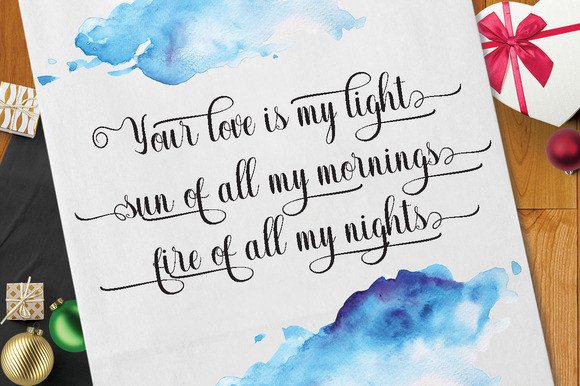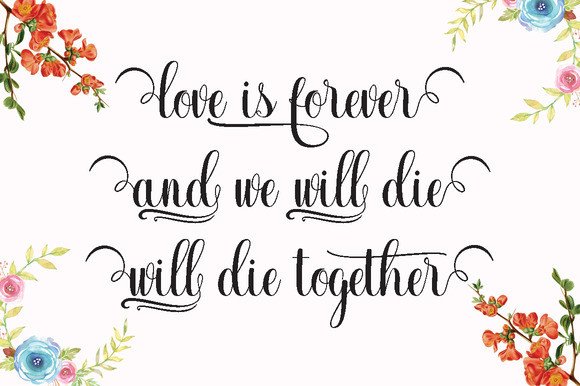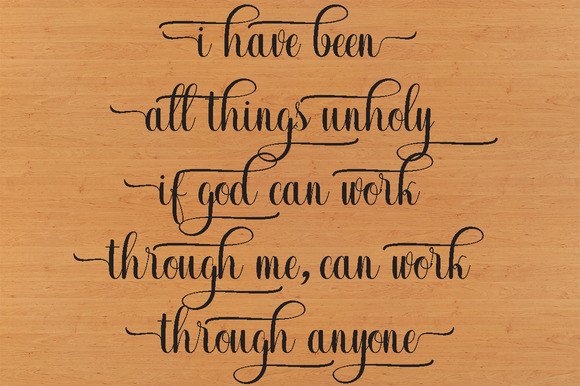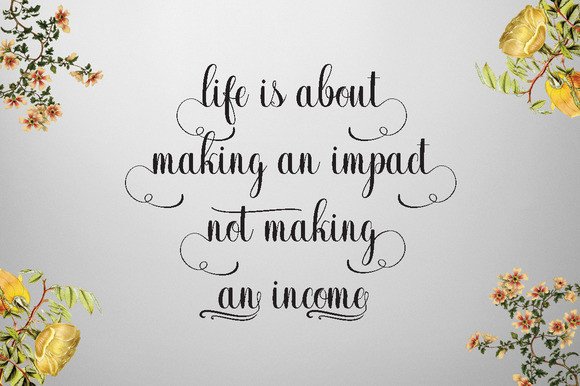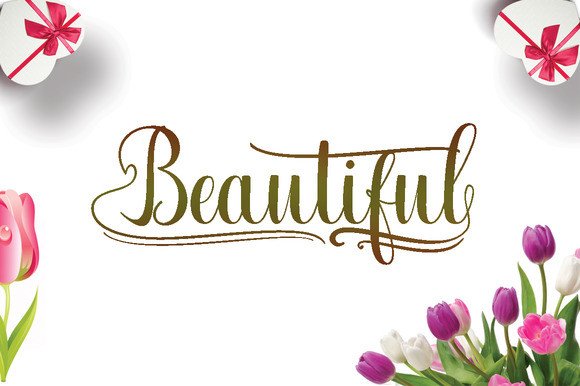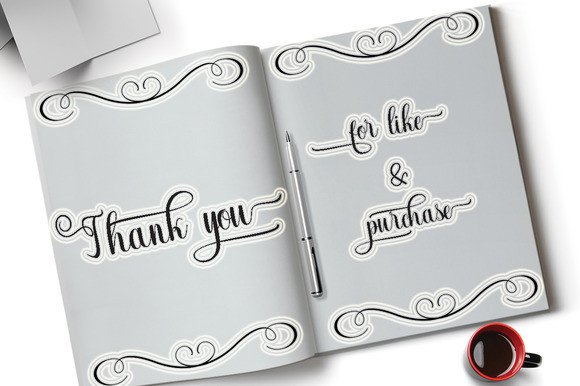
Introducing Bluebonnet Font: Elevate Your Designs with Elegance and Charm
Are you a designer or crafter looking for a font that can add a touch of sophistication and whimsy to your projects? Look no further than the Bluebonnet Font, a charming decorative script font that’s perfect for special event design, print applications, and more. In this article, we’ll dive into the features and benefits of Bluebonnet, and explore how it can elevate your designs to the next level.
What is Bluebonnet Font?
Bluebonnet is a beautiful, hand-crafted script font that’s designed to bring a touch of elegance and charm to your designs. With its gorgeous flourishes and ligatures, this font is ideal for designs that need an eye-catching look. Whether you’re creating wedding invitations, party decorations, or promotional materials, Bluebonnet is the perfect choice.
Key Features of Bluebonnet Font
- Decorative Script Style: Bluebonnet features a stunning decorative script style that’s perfect for adding a touch of sophistication to your designs.
- Gorgeous Flourishes and Ligatures: This font comes with beautiful flourishes and ligatures that add a touch of elegance and whimsy to your text.
- Special Event Design: Bluebonnet is ideal for special event design, including weddings, parties, and other celebrations.
- Print Applications: This font is also perfect for print applications, including brochures, flyers, and more.
Benefits of Using Bluebonnet Font
So why choose Bluebonnet Font for your designs? Here are just a few benefits of using this beautiful font:
- Adds Elegance and Sophistication: Bluebonnet adds a touch of elegance and sophistication to your designs, making it perfect for special occasions and high-end applications.
- Eye-Catching Look: The gorgeous flourishes and ligatures in Bluebonnet make it perfect for designs that need to stand out from the crowd.
- Versatile: This font can be used in a variety of design applications, from special event design to print materials.
How to Use Bluebonnet Font in Your Designs
Using Bluebonnet Font in your designs is easy. Here are a few tips to get you started:
- Pair with Other Fonts: Bluebonnet looks great when paired with other fonts, such as sans-serif fonts for a modern look or serif fonts for a more traditional look.
- Experiment with Sizes and Colors: Don’t be afraid to experiment with different sizes and colors to find the perfect look for your design.
- Use for Headings and Titles: Bluebonnet is perfect for headings and titles, where its elegant and decorative style can really shine.
In conclusion, Bluebonnet Font is a beautiful and versatile decorative script font that’s perfect for designers and crafters looking to add a touch of elegance and charm to their projects. With its gorgeous flourishes and ligatures, this font is ideal for special event design, print applications, and more. Whether you’re a seasoned designer or just starting out, Bluebonnet is a great choice for anyone looking to elevate their designs to the next level.
- Pay Attention to Details: The details are what make Bluebonnet truly special. Pay attention to the way the flourishes and ligatures interact with the rest of the text.